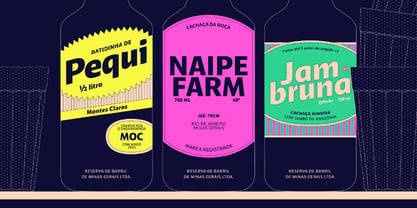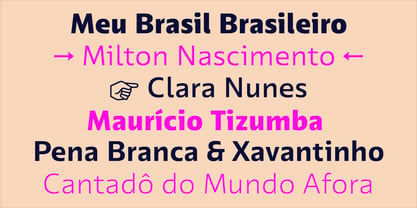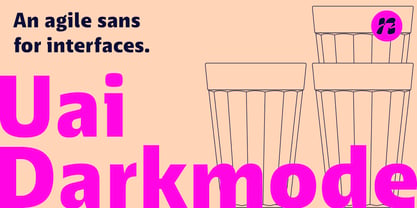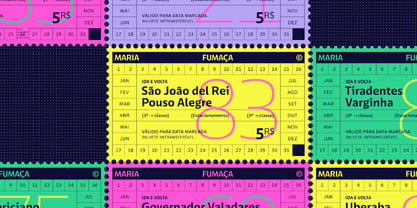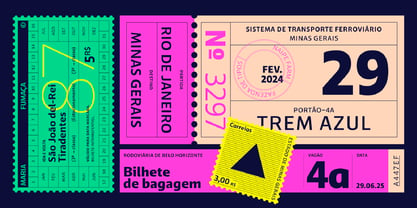
Uai Darkmode
by Naipe Foundry
The Uai Darkmode Font Family was designed by Felipe Casaprima, Álvaro Franca and published by Naipe Foundry. Uai Darkmode contains 7 styles and family package options. More about this family
Uai Darkmode is a sans serif designed to meet the high standards of modern user-interface design, infused with the taste and beauty of Minas Gerais. This 14-style, fully variable family is highly legible and adaptable, solving complex design challenges without losing its charm. Just like the people of Minas, it always finds a way to do things its own way—quietly confident, effortlessly effective.
Designers: Felipe Casaprima, Álvaro Franca
Foundry: Naipe Foundry
About Naipe Foundry
Naipe Foundry designs custom typefaces and refines logotypes with care, curiosity and craft. Born in Rio and based in Barcelona, we’ve been helping brands find their typographic voice since 2018. Our work is grounded in research and cultural context. We collaborate closely, think strategically and deliver type that looks right, feels right and works everywhere. With tailored tools and hassle-free licensing, we make type that’s easy to work with and ready to go. Our core team works with a network of native script specialists that ensure our fonts are high quality in any writing system, always keeping consistency and cultural sensitivity in balance.